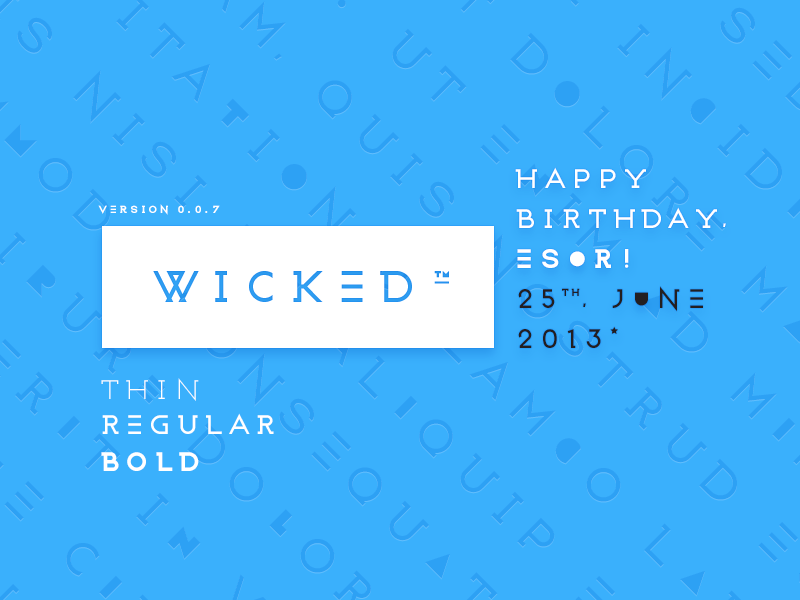
Font name: | Wicked |
Author: | Emile, Byeongsu Kim |
Note by Emile, Byeongsu Kim | |
WICKED. (beta) version 0.0.8 Inspired by Museo. 2 faced Capital, 3 weight - thin, regular, bold. this font is for my younger daughter's first birthday. Bless my Daughter - Esor Kim. thank you. * version history 0.0.2 - Kerning Update. 0.0.3 - Ampersand, Dollar Changed. Auto Hinting added. 0.0.5 - Thin Added. Euro modified. 0.0.7 - some Latin Alphabet Added. N modified. 0.0.8 - 3rd Big revision. esp C. |